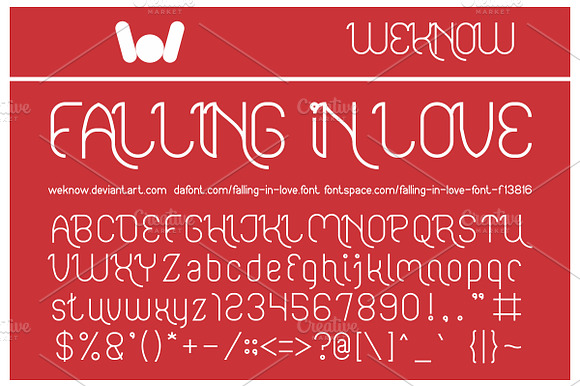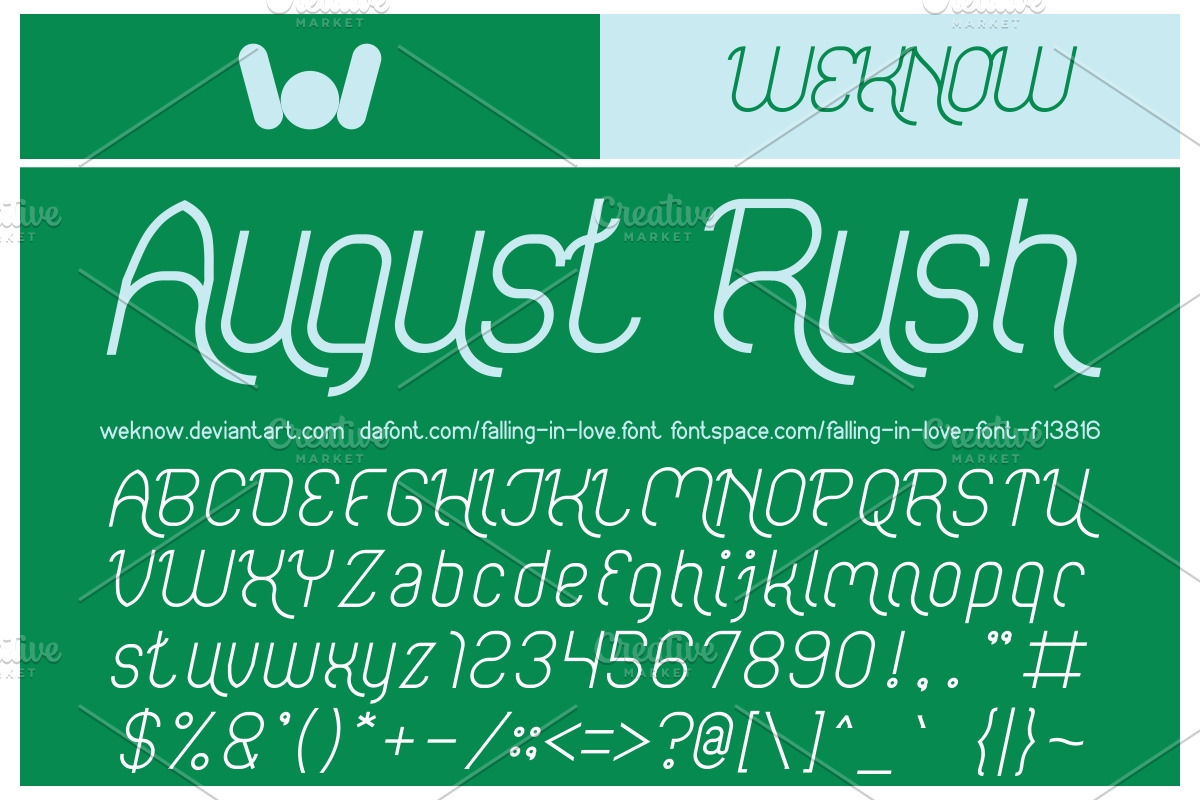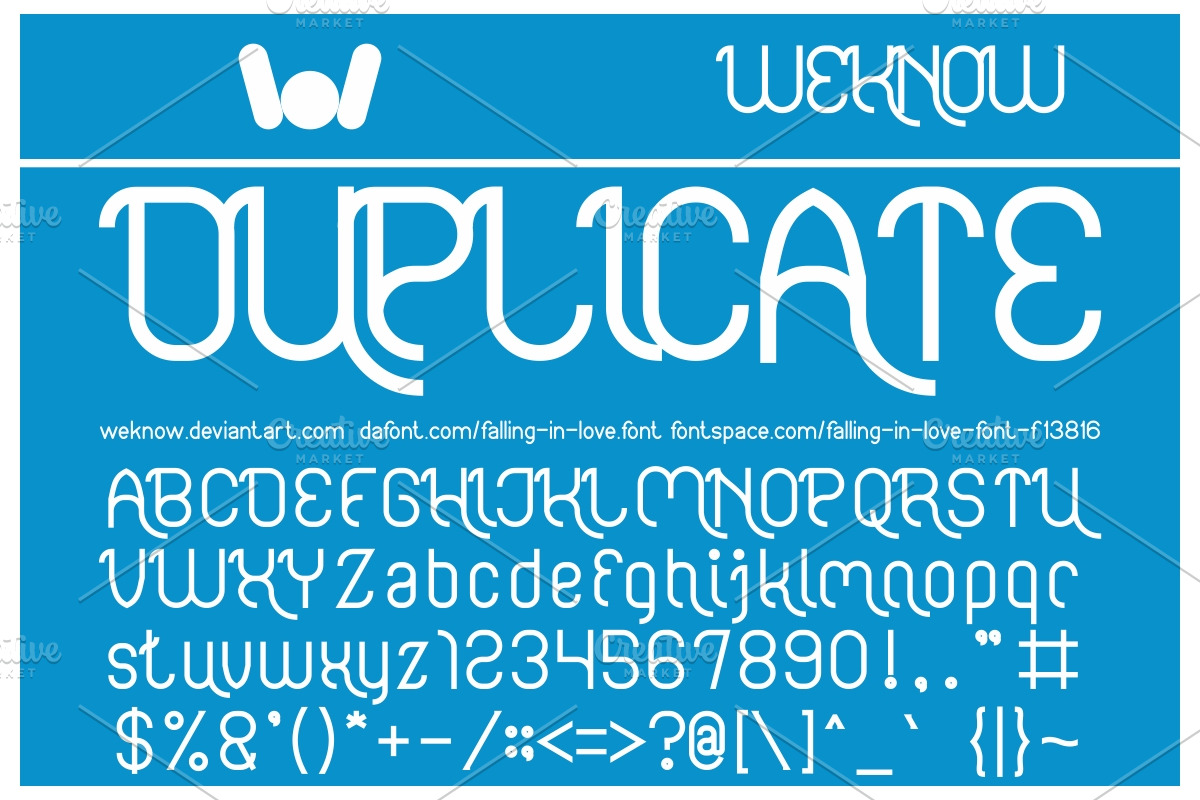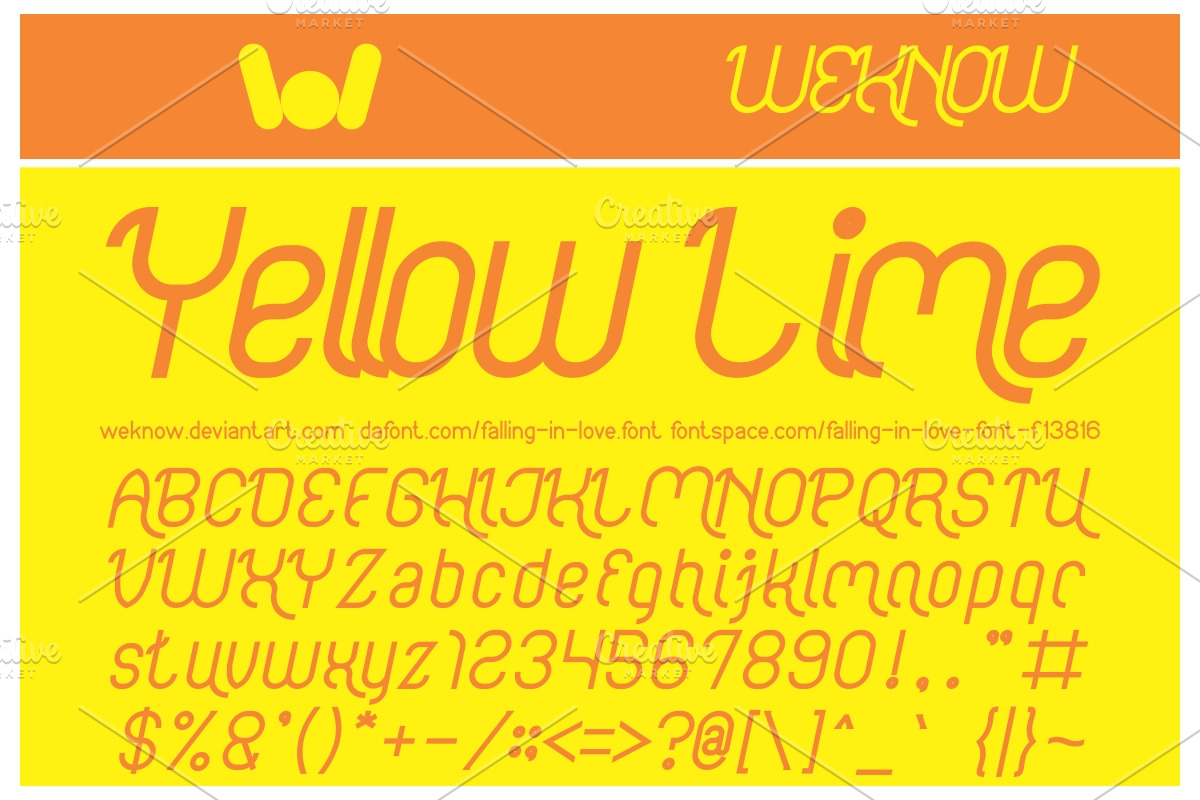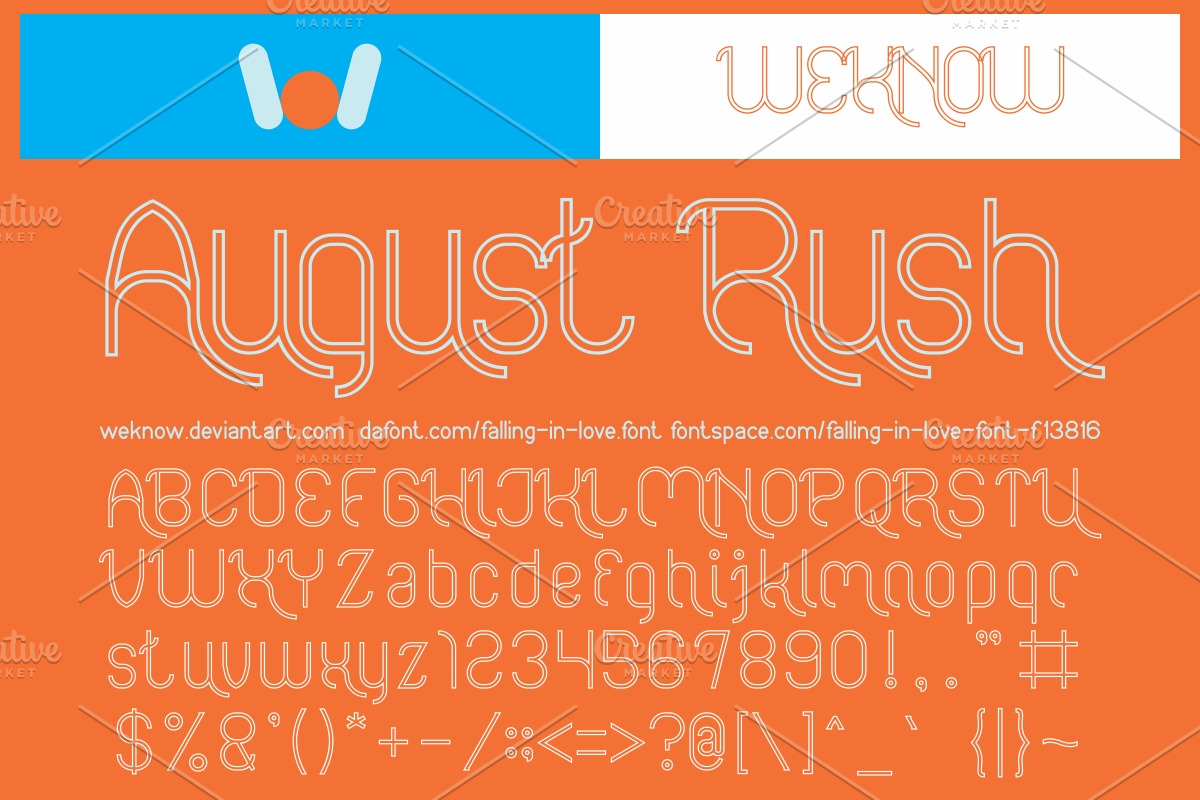
falling in love font
Why falling in love font is worth a look
falling in love font by weknow fits naturally into Branding, posters, packaging, typography.